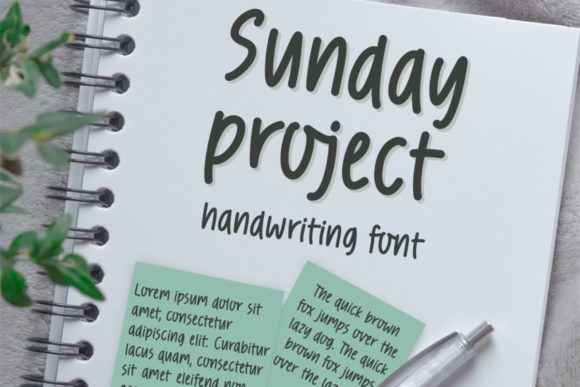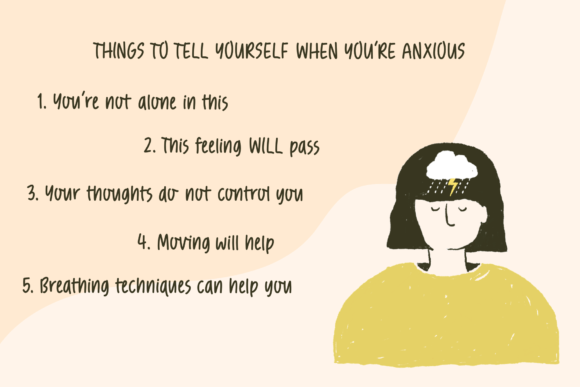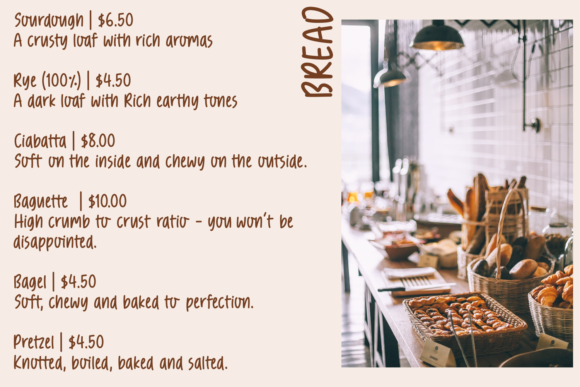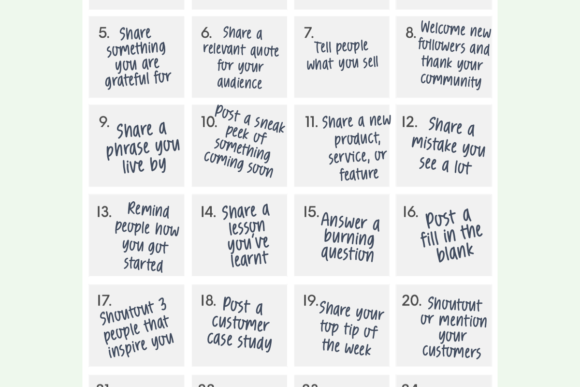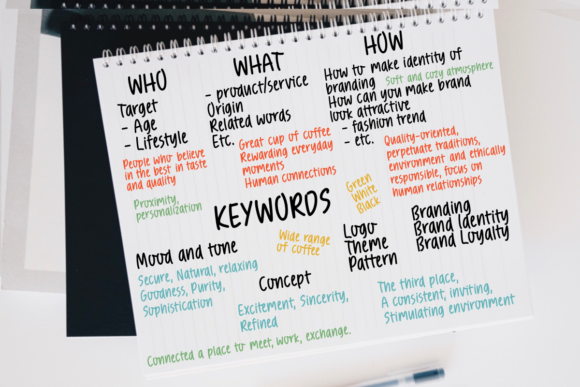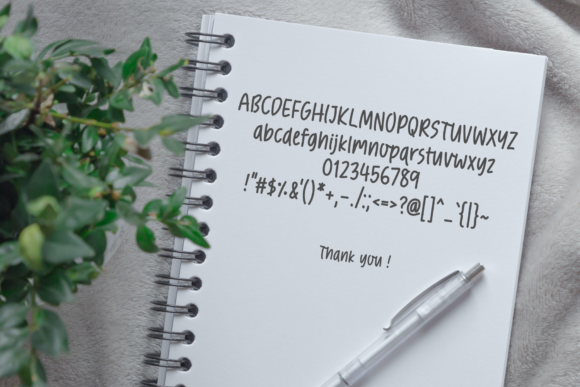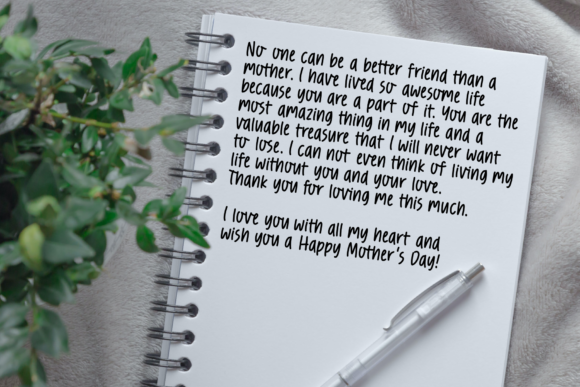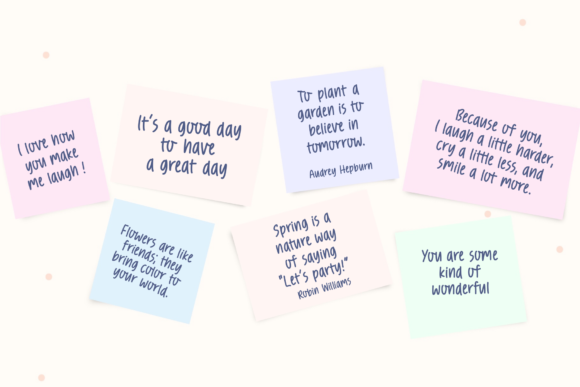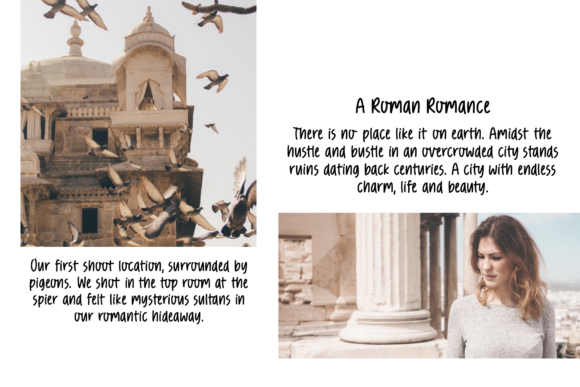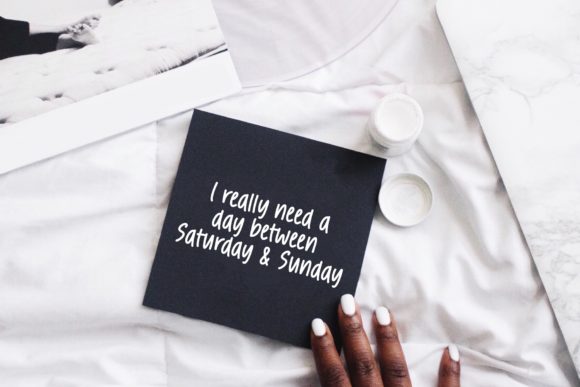
Sunday Project Font
About Sunday Project Font
Sunday Project is a sweet and friendly handwritten font. Its natural and unique style makes it incredibly fitting to a large pool of designs. The only limit is your imagination!